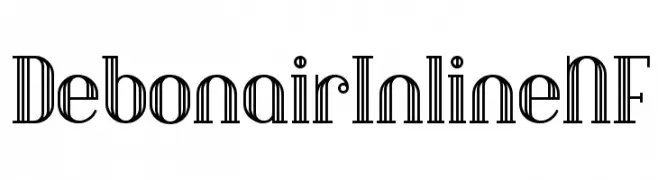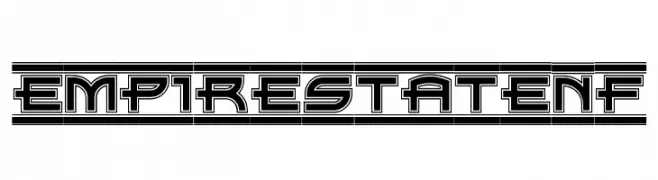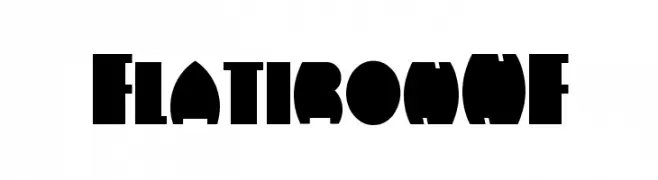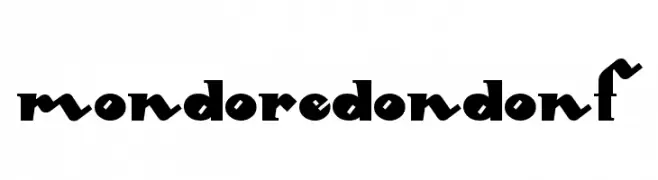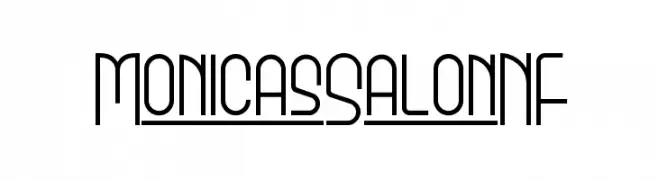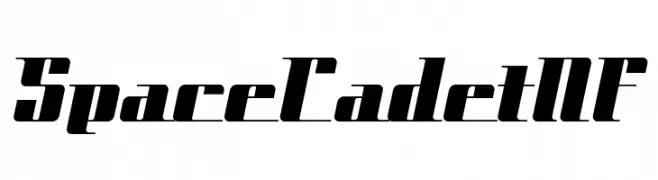
A bold, retro-inspired font with geometric shapes and decorative elements.
An elegant inline font with a sophisticated, decorative style.
A bold, geometric font with high contrast and modern design.
A futuristic, angular font with a dynamic slant and bold presence.
A modern, geometric font with tall, narrow characters and uniform stroke width.
A bold, geometric font with a distinctive shadow effect, perfect for modern and creative designs.
A bold, geometric font with an architectural, three-dimensional style.
A dynamic, forward-leaning font with bold, angular characters.
A bold, geometric font with playful and dynamic character shapes.
A bold, geometric font with modern and artistic letterforms.